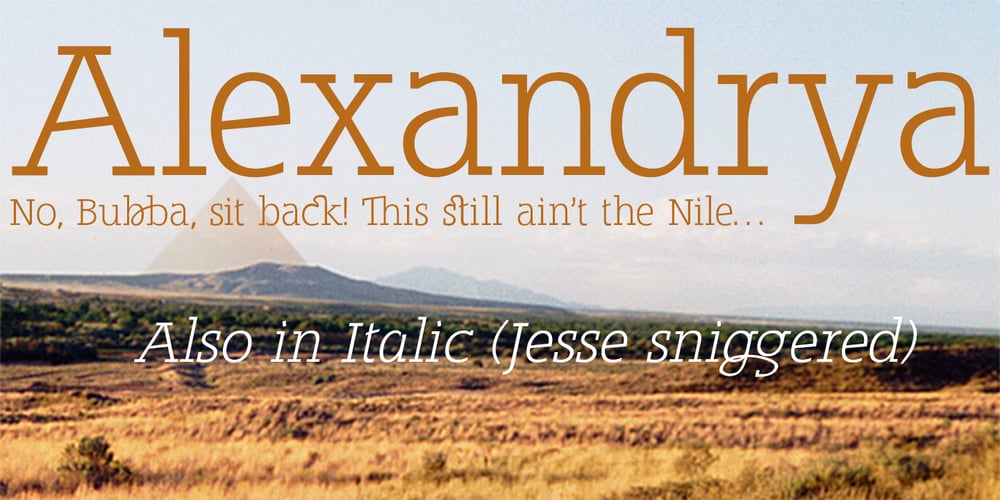
Alexandrya
Alexandrya font
Alexandrya Font Family was designed by David Bergsland and published by Hackberry Font Foundry. Alexandrya contains 2 styles and family package options. Alexandrya is a subtly modulated block serif font family with a humanist sensibility and all of my personal style for font design. A distant ancestor of the basic letterforms is Minister (a German font of the 1920s) through my first font in the mid-1990s, Diaconia. There are many OpenType features with over 600 characters: Caps, lower case, small caps, ligatures, discretionary ligatures, swashes, small cap figures, old style figures, numerators, denominators, accent characters (including CE), ordinal numbers (1st-infinity: lining and oldstyle), and so on. It is designed for text use in body copy.